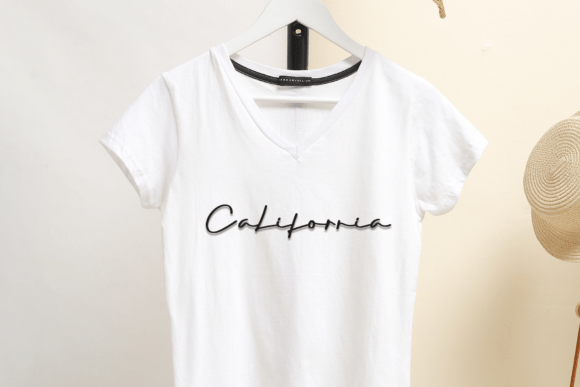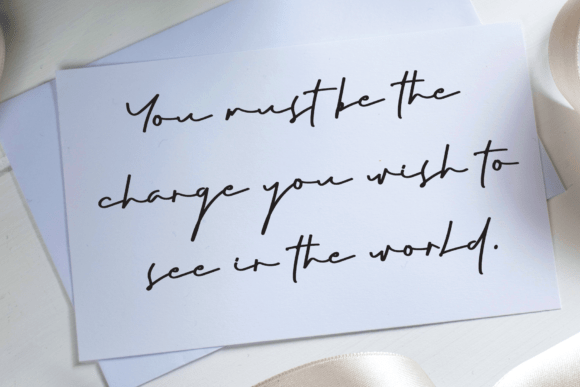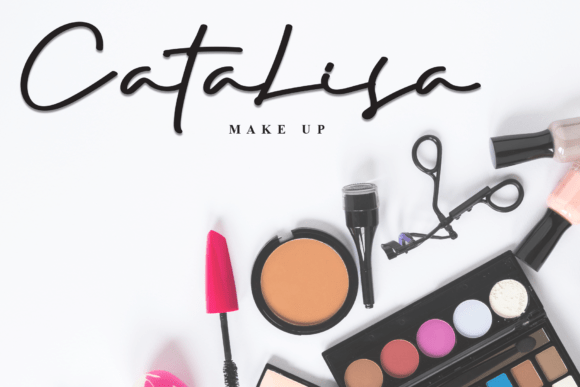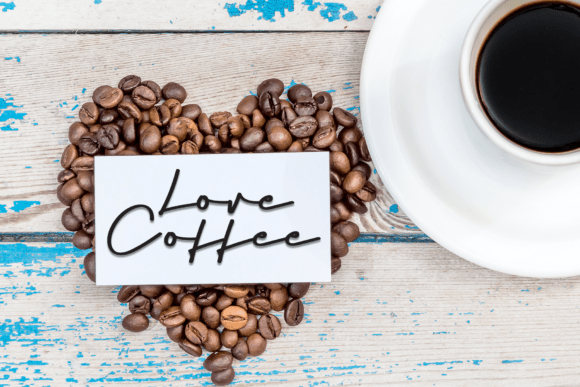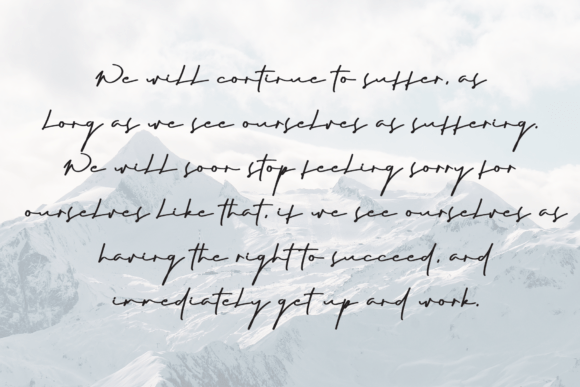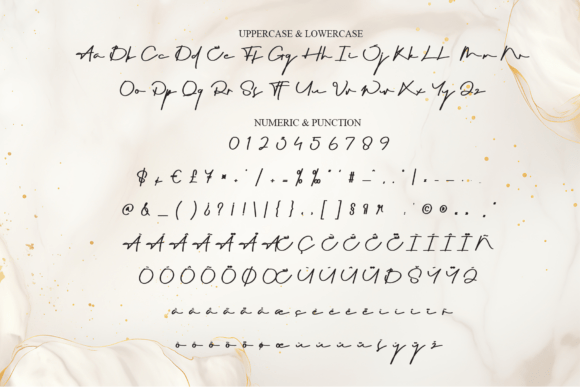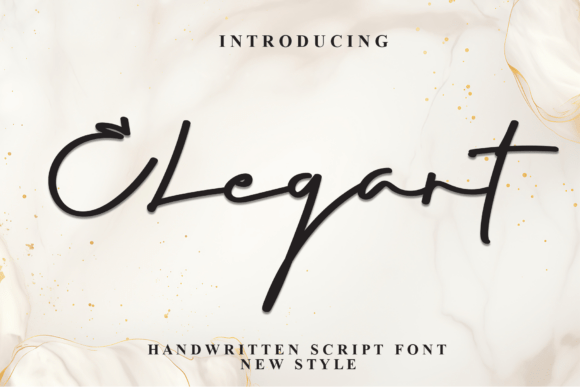
Elegant Font: Elevate Your Designs with a Personal Touch
Are you tired of using the same old fonts in your designs? Do you want to add a personal touch to your projects and make them stand out from the crowd? Look no further than the Elegant Font, a beautiful script handwritten font that is designed to feel personal and expressive. In this article, we’ll take a closer look at the features and benefits of this stunning font, and explore how it can be used to elevate your designs.
A Font that Feels Personal and Expressive
The Elegant Font is a script handwritten font that is designed to capture the natural flow and smooth curves of handwriting. It’s perfect for designers and crafters who want to add a personal touch to their projects, and make them feel more approachable and relatable. With its elegant strokes and charming character, this font is sure to add a touch of sophistication and style to any design.
Perfectly Legible and Full of Personality
One of the standout features of the Elegant Font is its perfect balance of legibility and personality. The font is clear and easy to read, making it perfect for body text, while its unique character and charm make it ideal for titles and decorative elements. Whether you’re designing a magazine cover, a wedding invitation, or a social media graphic, this font is sure to make your project stand out.
The Elegant Font is incredibly versatile, and can be used for a wide range of design projects. Here are just a few ideas to get you started:
- T-shirts and apparel: Add a personal touch to your t-shirt designs with this elegant font. It’s perfect for quotes, phrases, and slogans.
- Magazine covers: Make your magazine cover stand out with a bold and eye-catching title in the Elegant Font.
- Wedding invitations: Add a touch of elegance and sophistication to your wedding invitations with this beautiful font.
- Branding: Use the Elegant Font to create a unique and memorable brand identity for your business.
- Social media graphics: Add a personal touch to your social media graphics with this charming font. It’s perfect for quotes, tips, and inspirationals.
- Greeting cards: Create beautiful and heartfelt greeting cards with the Elegant Font.
Why Choose the Elegant Font?
So why choose the Elegant Font for your next design project? Here are just a few reasons:
- Unique and expressive: This font is designed to feel personal and expressive, making it perfect for designers who want to add a touch of personality to their projects.
- Perfectly legible: The Elegant Font is clear and easy to read, making it perfect for body text and titles.
- Versatile: This font can be used for a wide range of design projects, from t-shirts and magazine covers to wedding invitations and social media graphics.
- Elegant and sophisticated: The Elegant Font adds a touch of elegance and sophistication to any design, making it perfect for designers who want to create high-end projects.
In conclusion, the Elegant Font is a beautiful and versatile script handwritten font that is perfect for designers and crafters who want to add a personal touch to their projects. With its natural flow and smooth curves, this font adds charm and character to any design. Whether you’re designing a magazine cover, a wedding invitation, or a social media graphic, the Elegant Font is sure to make your project stand out. So why not give it a try and see the difference it can make?